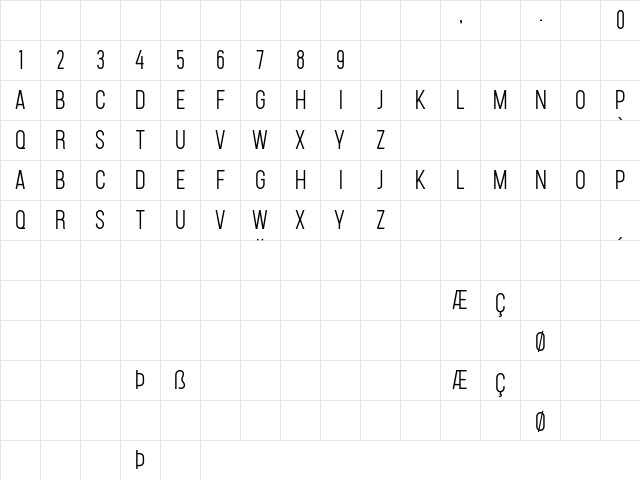
Carson Regular
Design Context for Carson Typeface
Carson offers clean, dependable letterforms without strong stylistic allegiance, making it a practical choice for designers who need flexibility.
Pro Tip: Use Carson in both headline and body roles to test its range before committing to a single application.